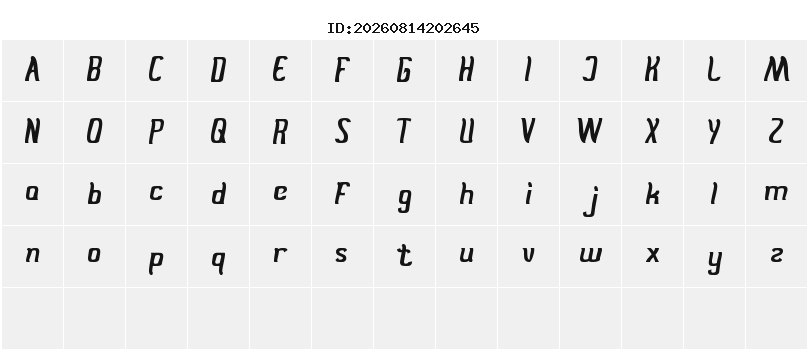
• Font Name: Stay true
About Stay true.ttf
Stay true.ttf is a modern, elegant sans-serif font designed for ultimate readability and visual harmony. Perfect for branding, headlines, web design, and print materials.